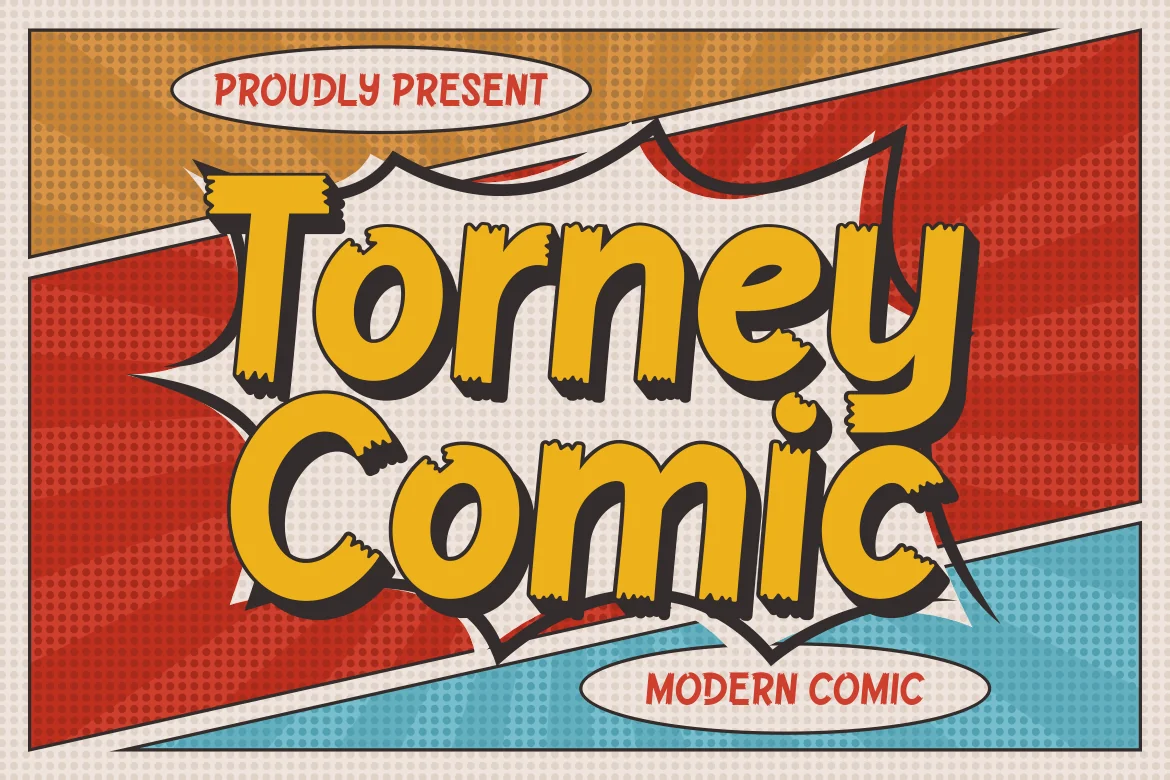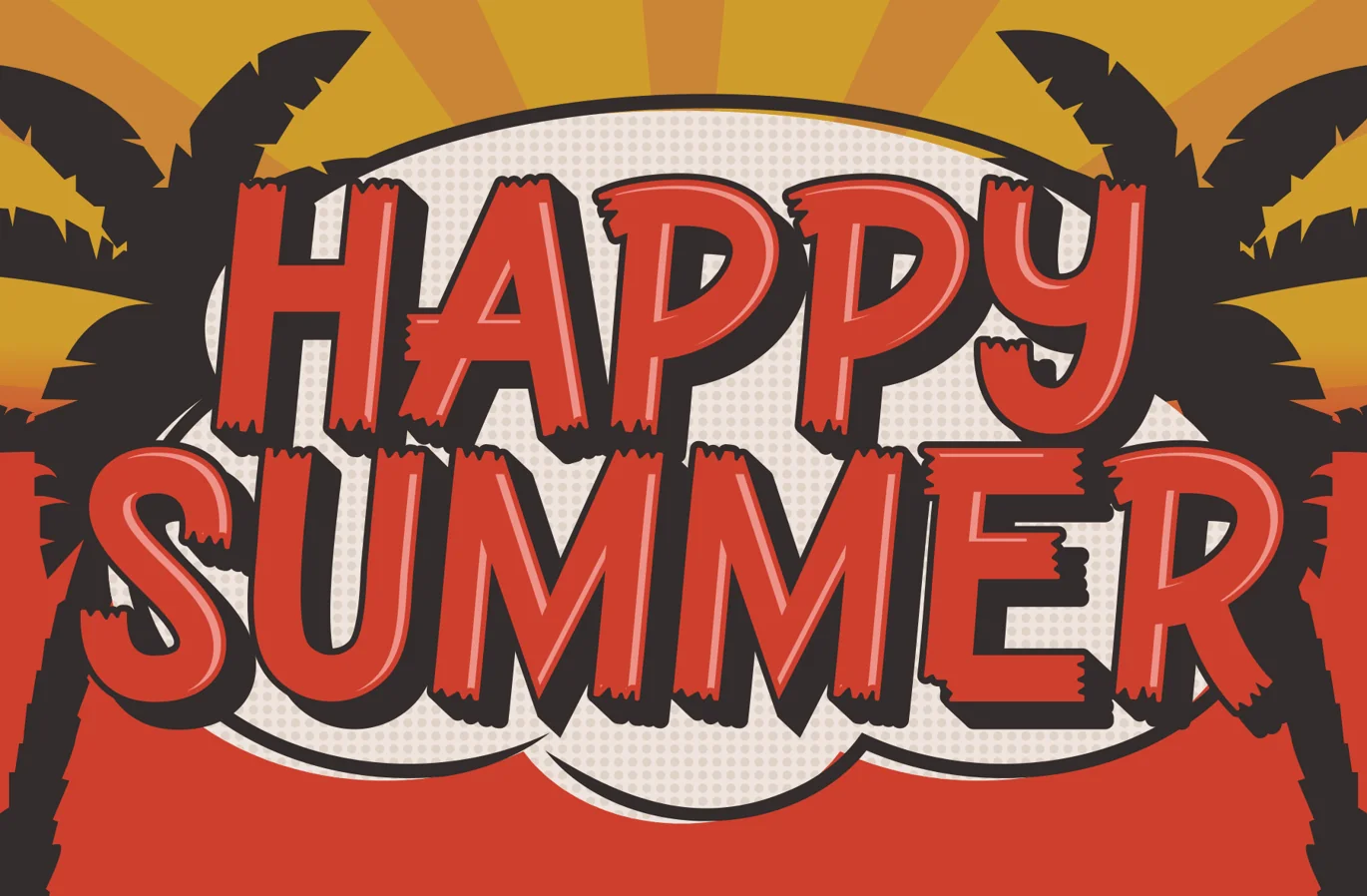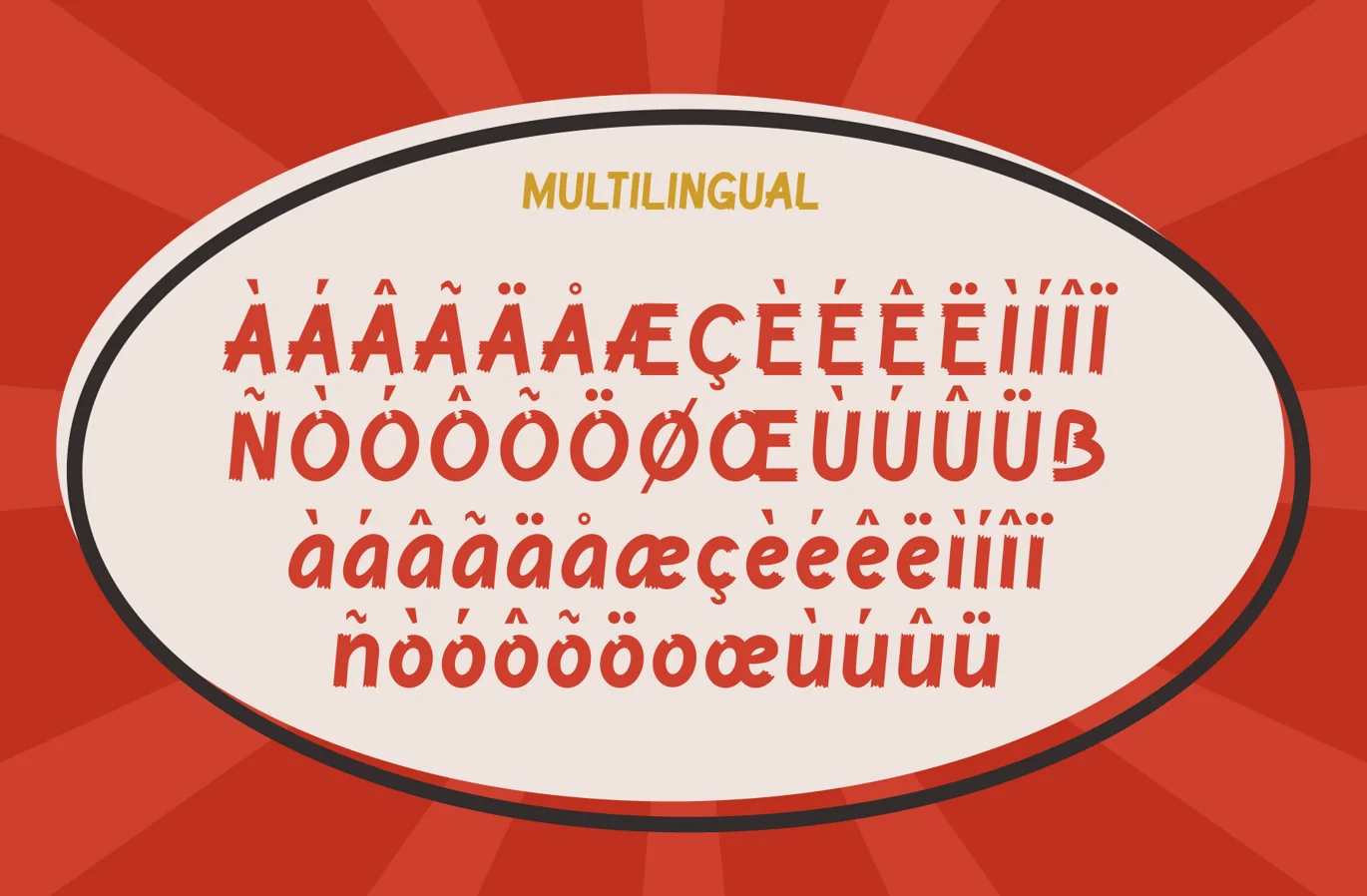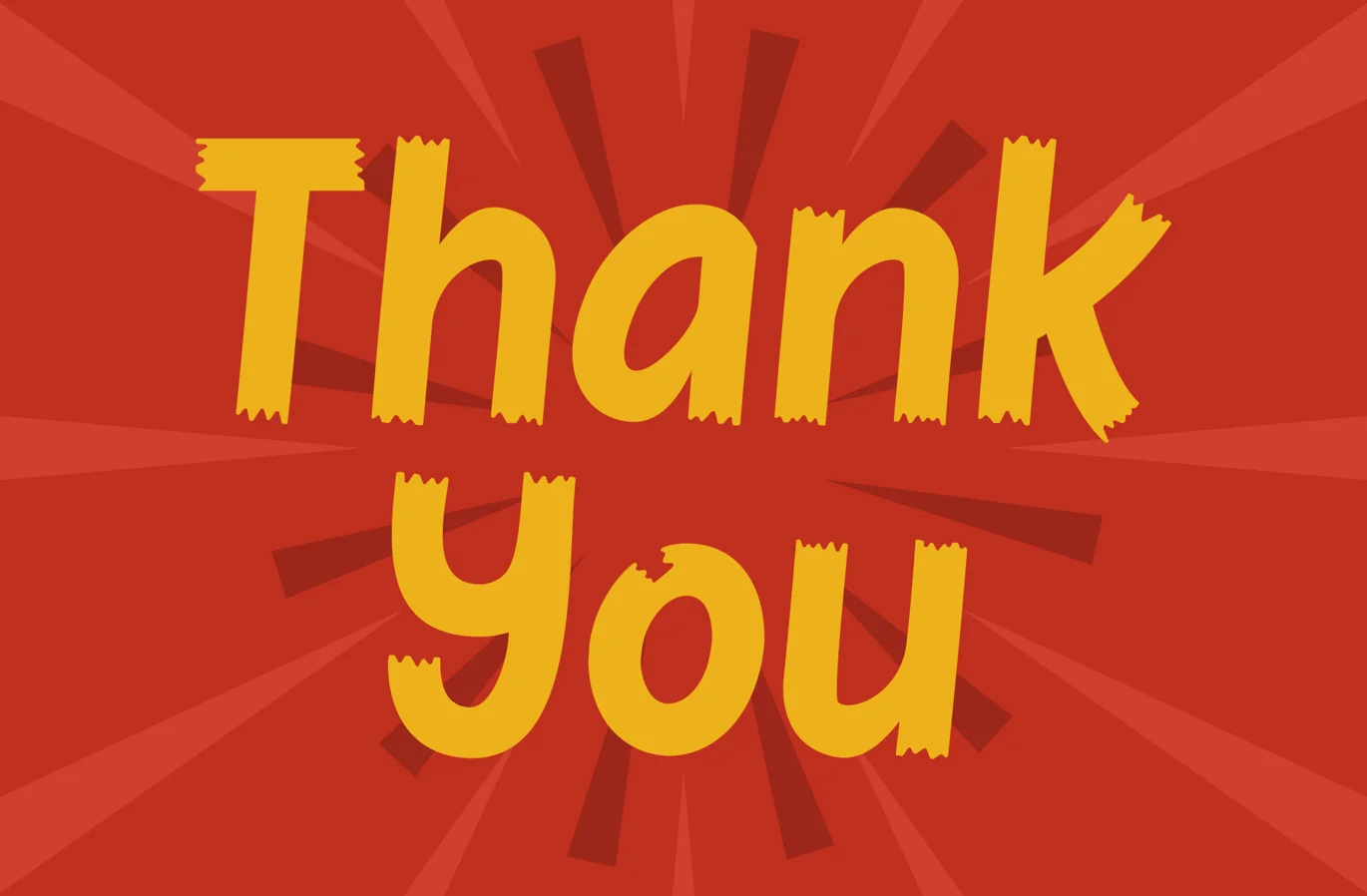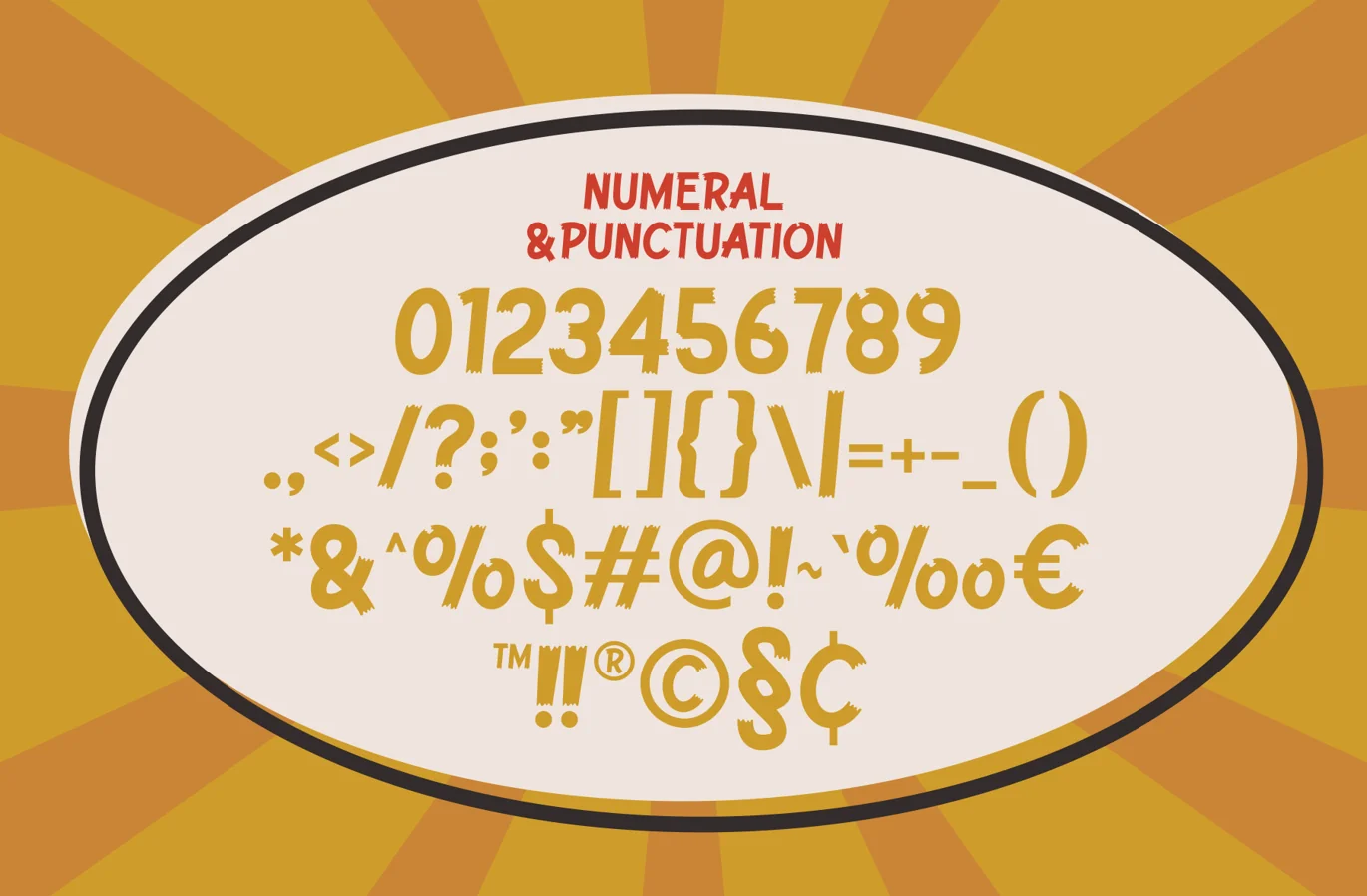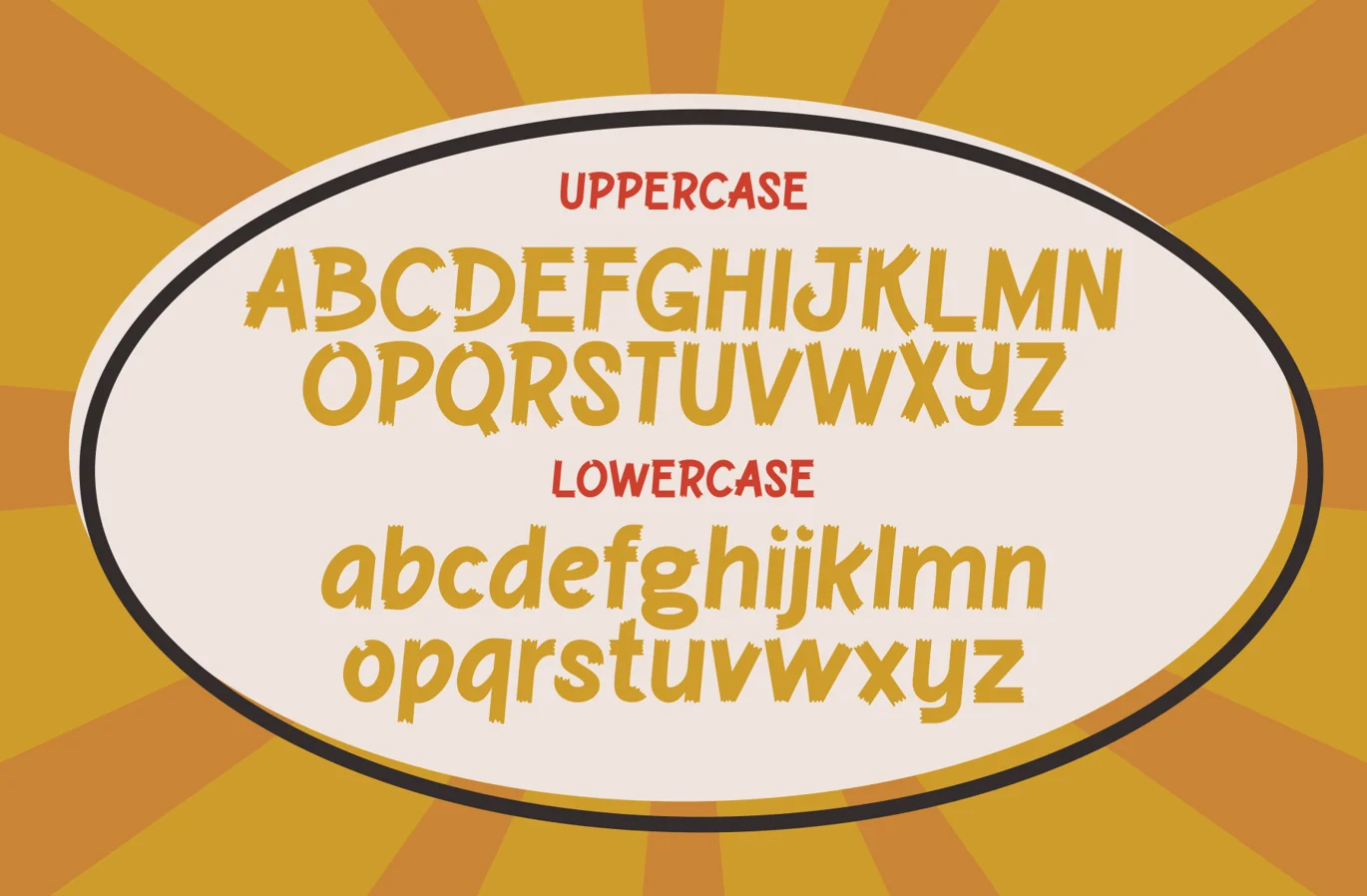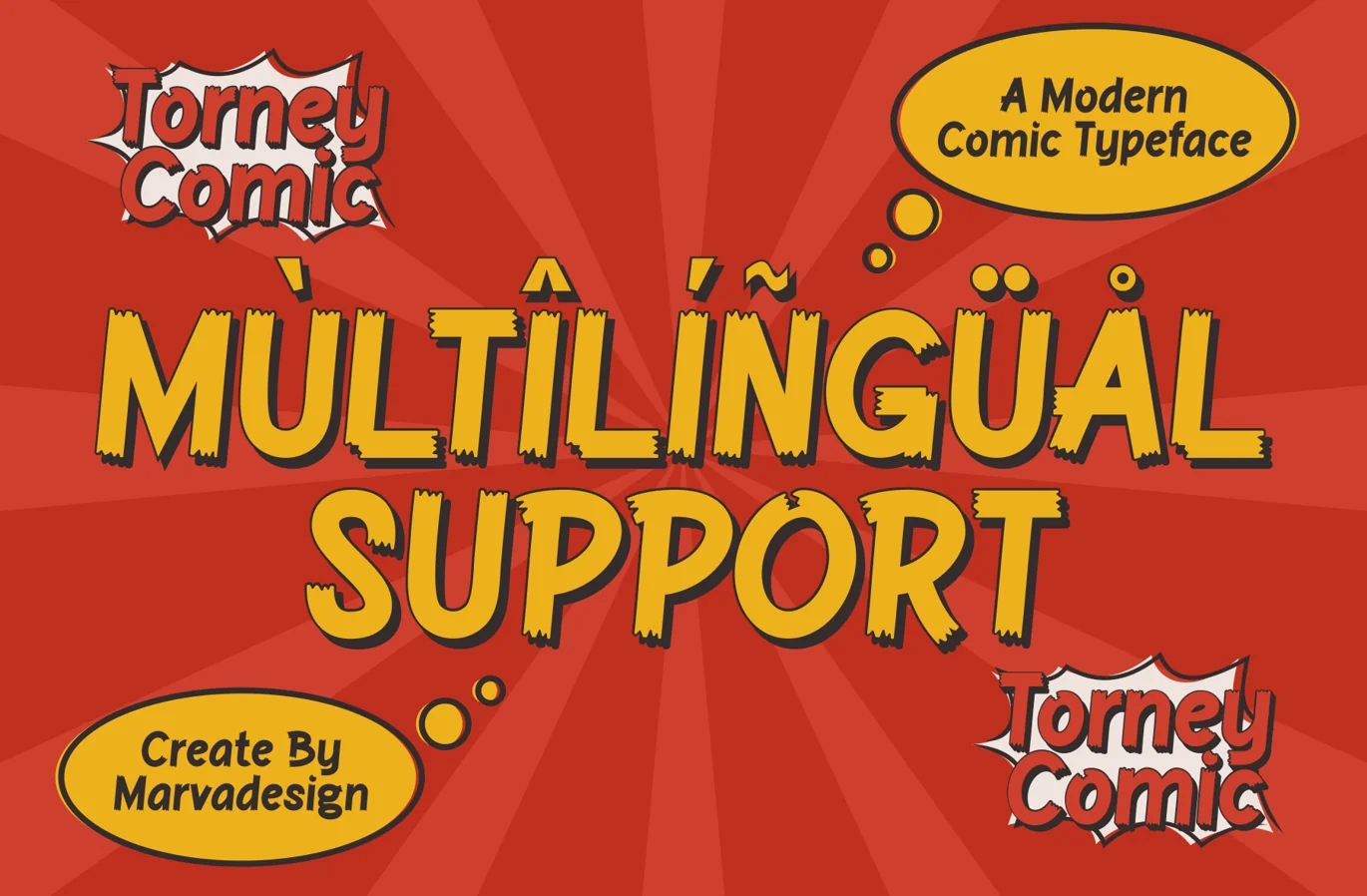
Torney Comic – A Modern Comic Font
Introducing our new product Torney Comic Font – Modern Font
Torney Comic Font – Modern Font is a bold and authentic display font. The font is suitable for any branding project like logo, Template Design, Product and many more. outstanding in a wide range of contexts.